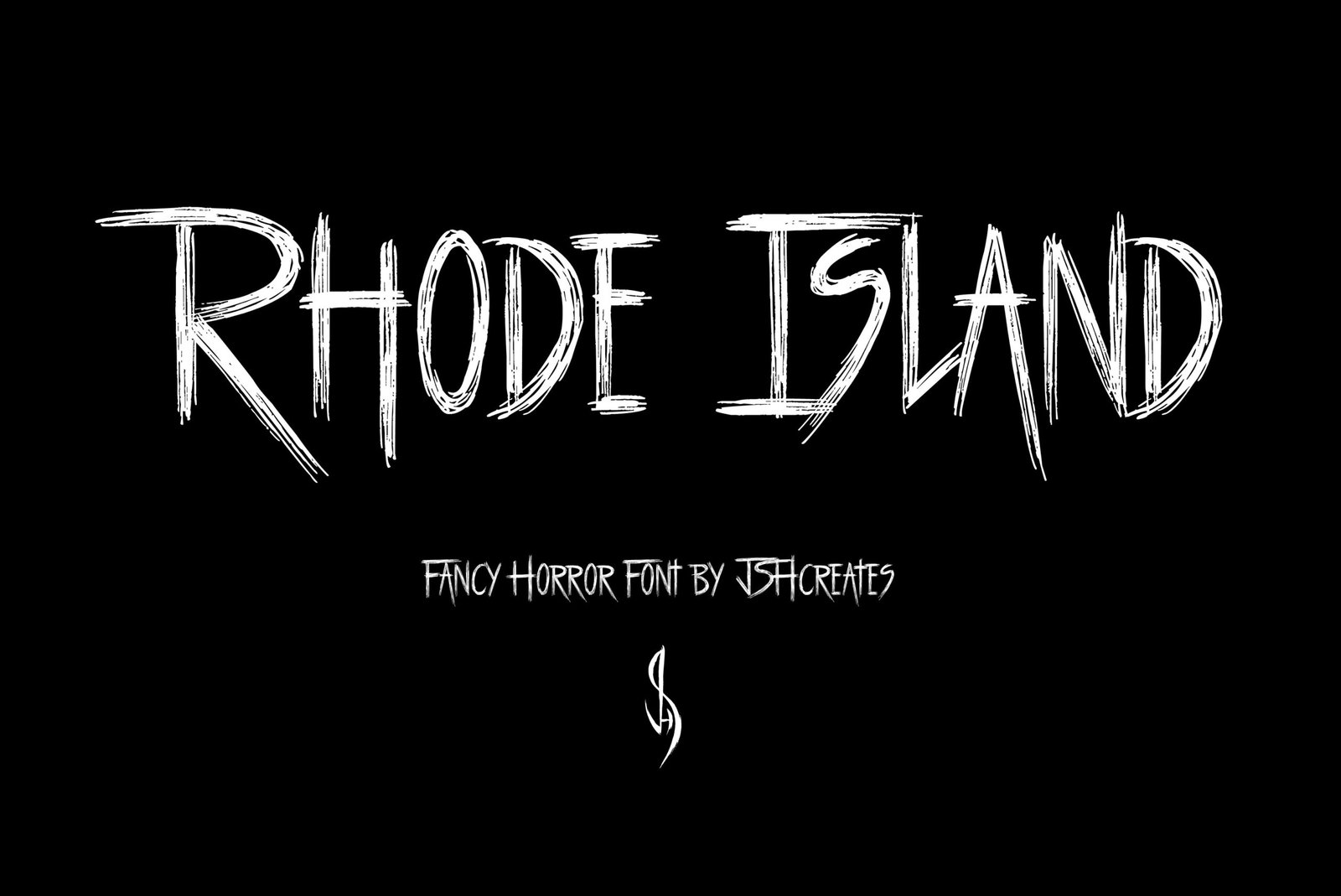
Rhode Island Font
Fancy horror font. “Rhode Island”. Perfect for advertising and display purposes, including banners, book covers, shirts, posters, logos and much more!
This is an all caps font.